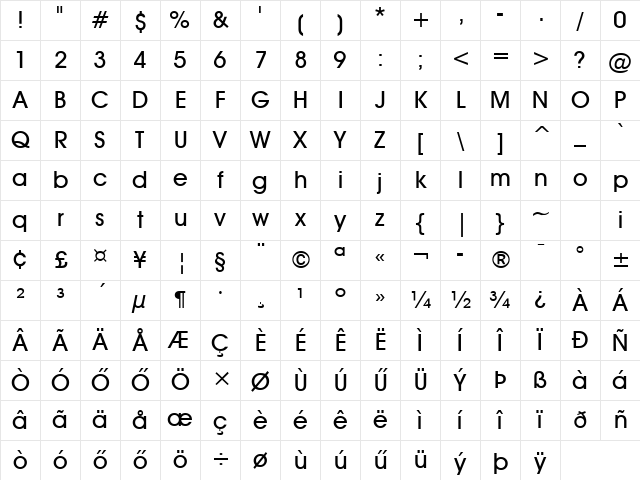
Hu_Avanr Regular
Design Context for Hu_Avanr
Hu_Avanr is a composed and adaptable typeface that performs quietly and consistently across a wide range of design contexts.